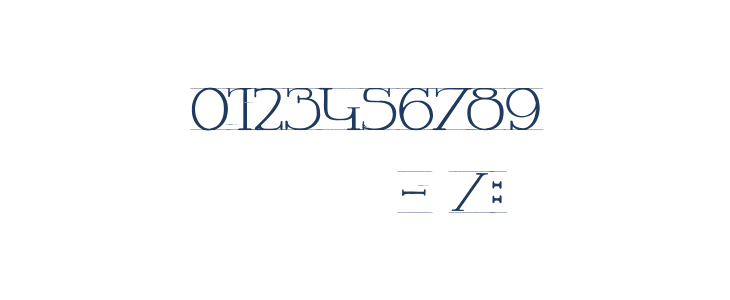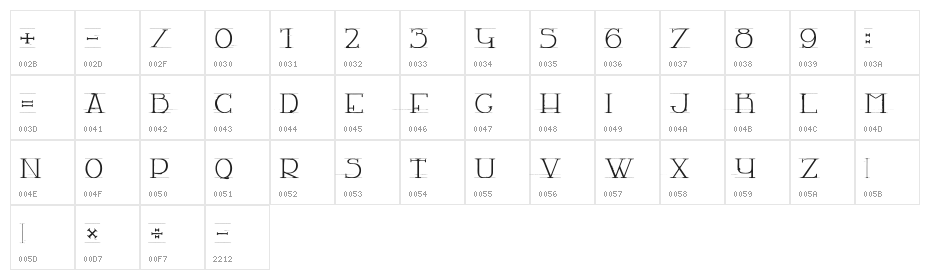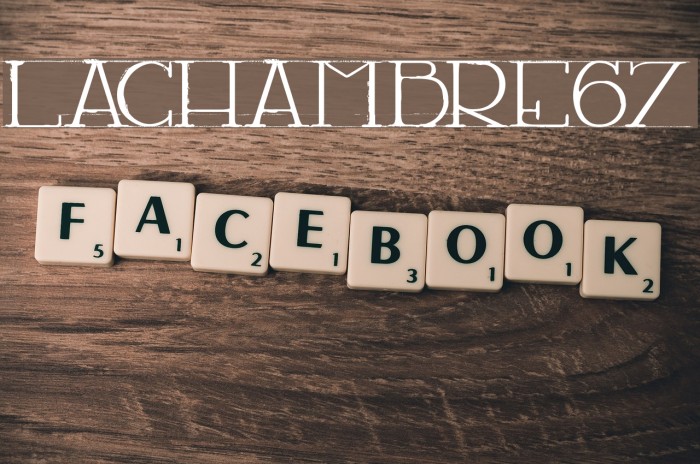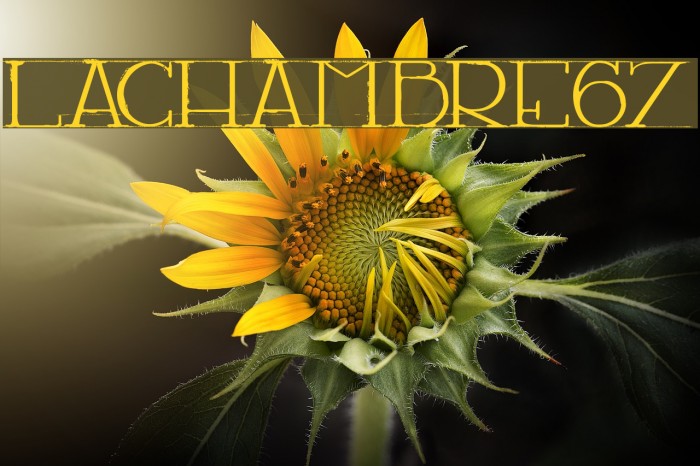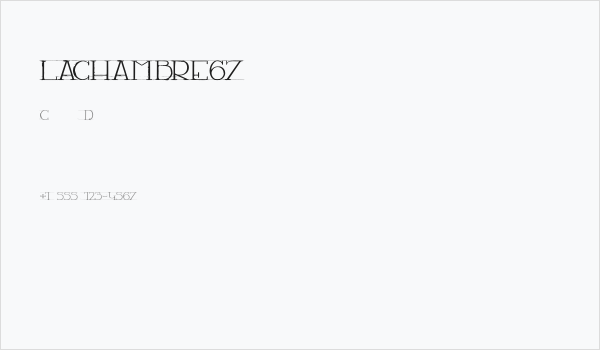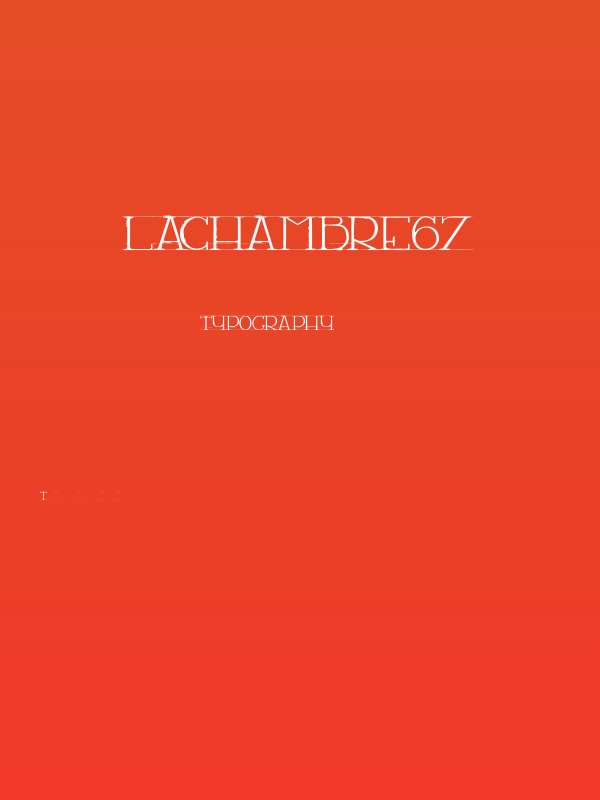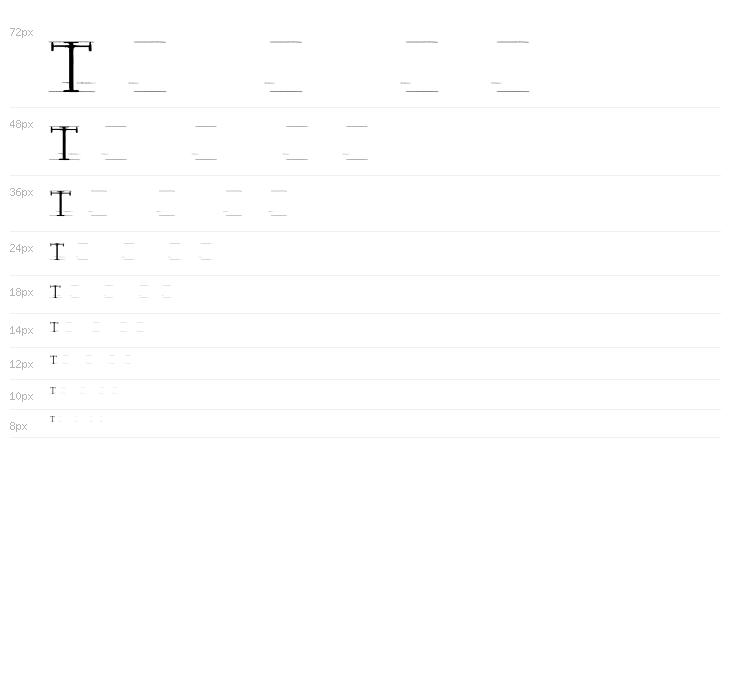
LACHAMBRE67 Font
LACHAMBRE67 Description
This font features a unique blend of classic and modern elements, characterized by its elegant and elongated letterforms. The uppercase letters exhibit a sophisticated style with thin, high-contrast strokes and subtle serifs, giving them a refined appearance. The numerals and special characters maintain this elegance, with a consistent stroke width and a balanced design. The overall aesthetic is both decorative and functional, making it suitable for a variety of design applications. The font's distinct style is ideal for projects that require a touch of sophistication and class.
| Overall Style | Classic |
| Proposed Projects | Ideal for luxury branding, editorial design, wedding invitations, and high-end product packaging. |